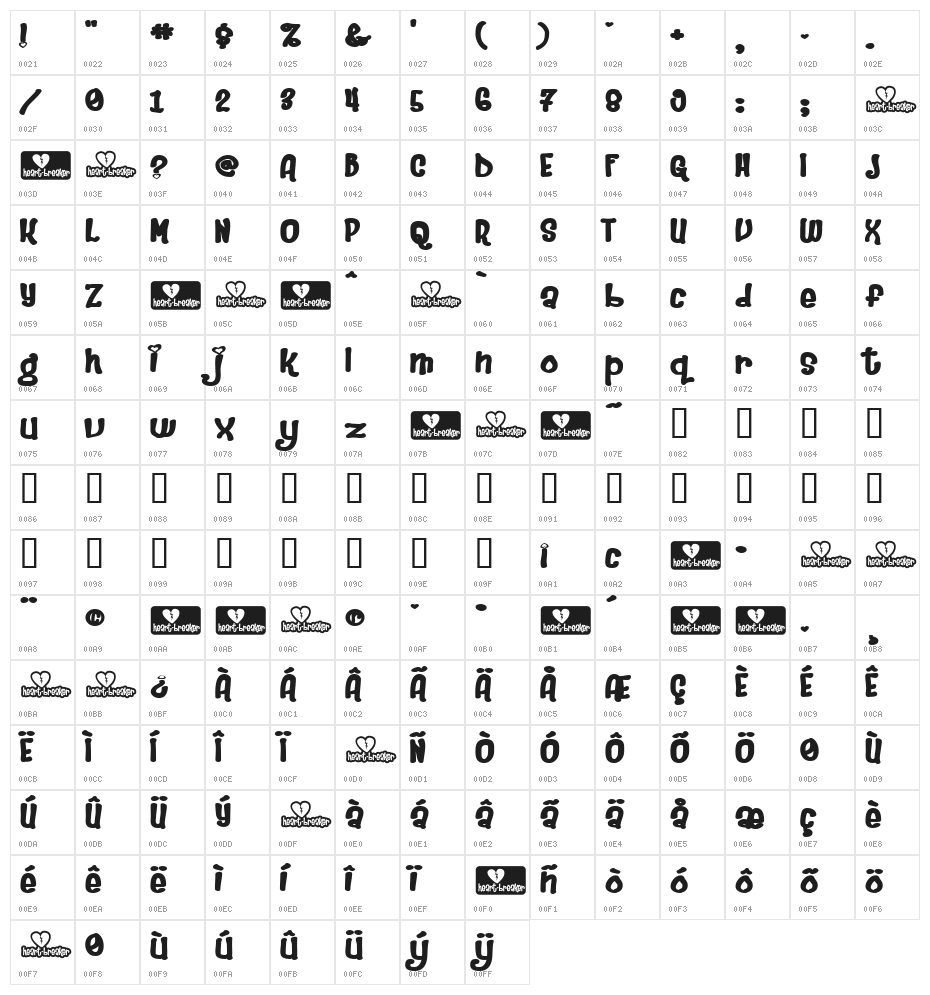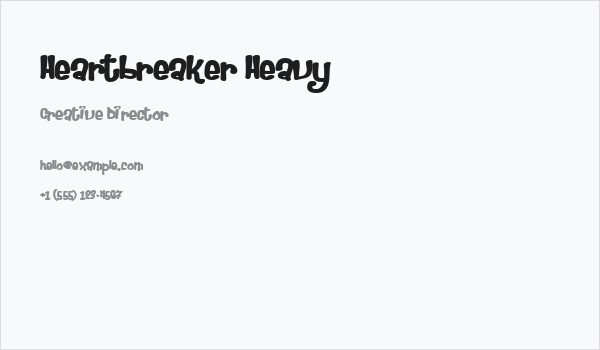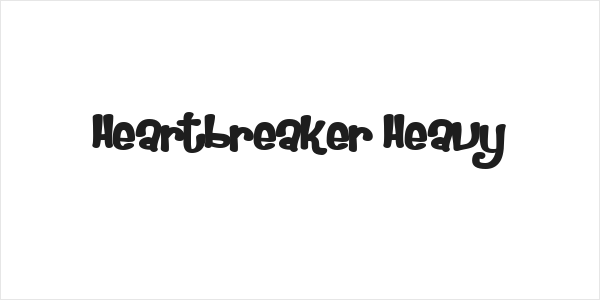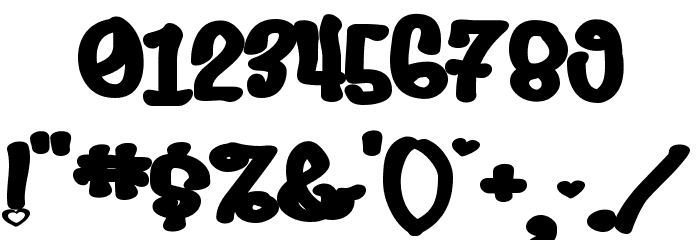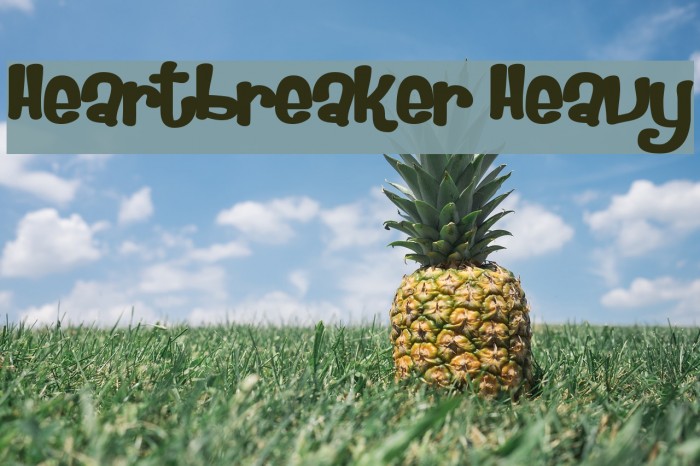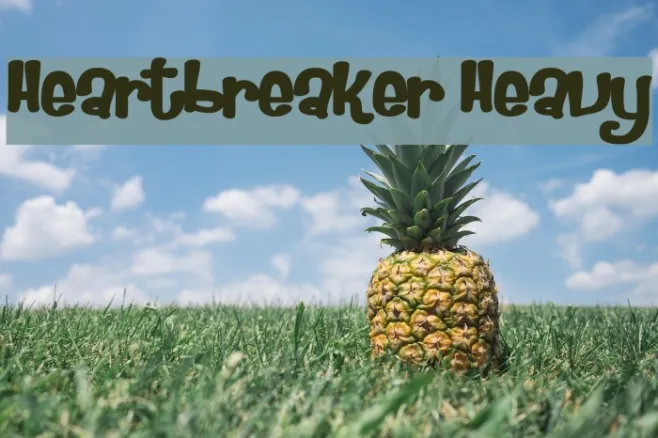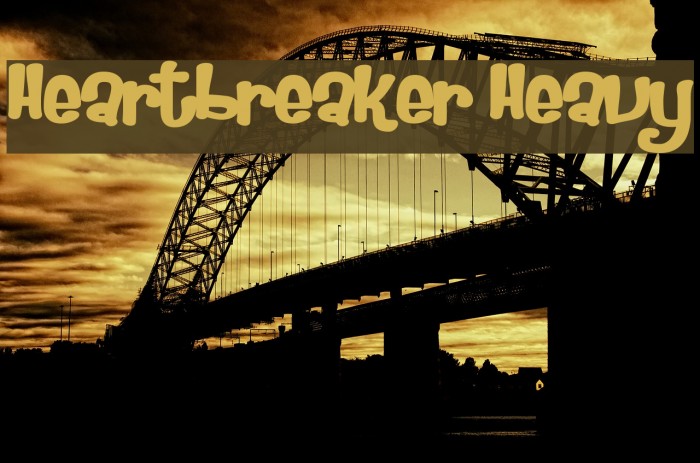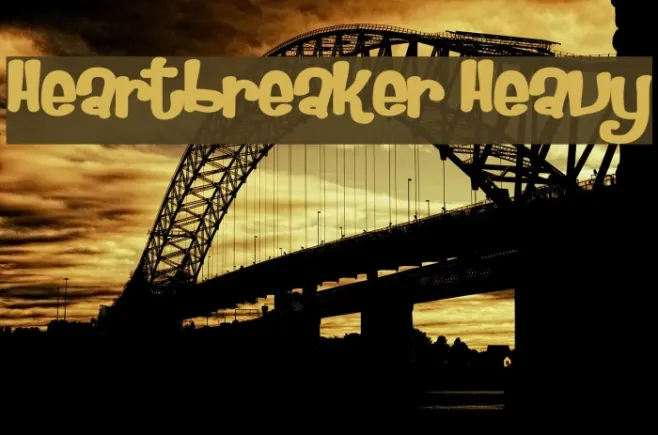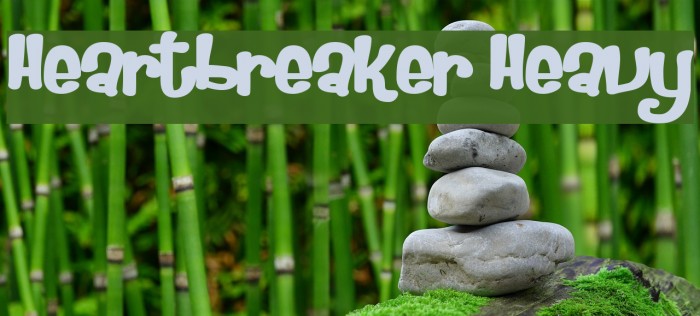
Heartbreaker Heavy Font
Heartbreaker Heavy Description
This playful and bold font features thick, rounded strokes with a whimsical touch. The characters are designed with a heavy weight, giving them a strong presence. The uppercase and lowercase letters maintain a consistent style, with some letters incorporating heart motifs, adding a unique and charming element. The numbers and special characters follow the same bold and rounded design, ensuring uniformity across the font. This font is ideal for projects that require a fun and eye-catching typeface.
| Overall Style | Playful and Whimsical |
| Proposed Projects | Perfect for children's books, playful branding, greeting cards, and posters. |